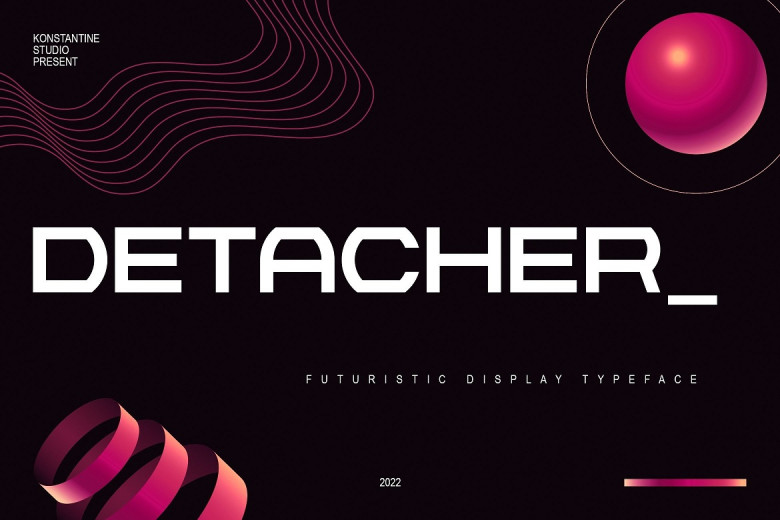
Detacher Font
Detacher is a font with strong and futuristic vibes . Use it to make a powerful statement in your visuals. Perfectly suited for poster design, logos, tech-wear, fashion and anywhere you need to bring a touch of tomorrow.
Detacher Display Font